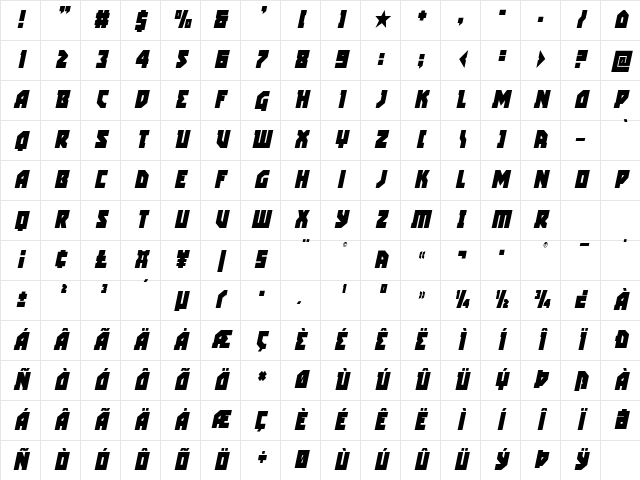
Arctic Guardian is a composed and adaptable typeface that performs quietly and consistently across a wide range of design contexts. The slanted form adds forward momentum and visual energy. Its narrow stance lets it pack a punch even in space-constrained designs.